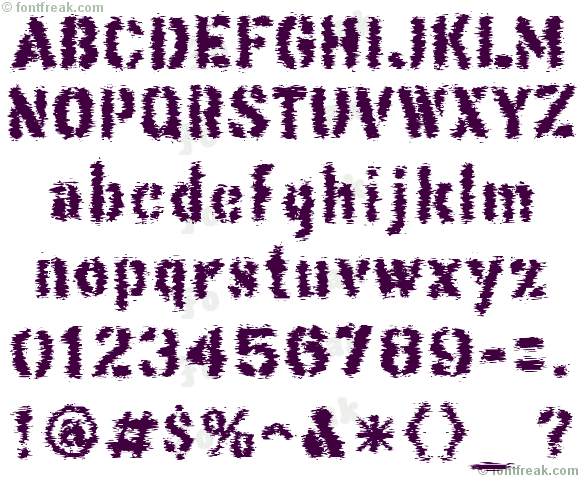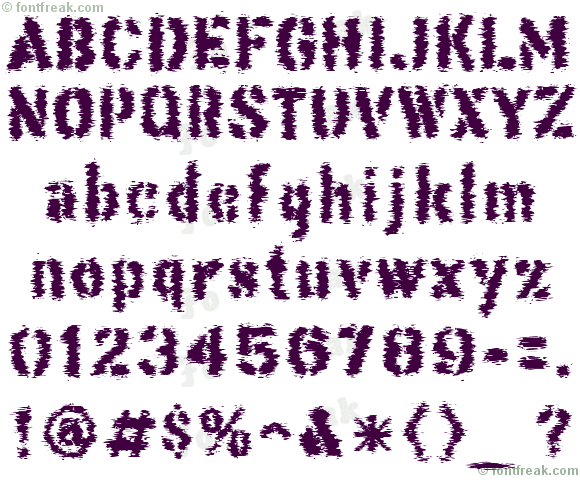
ThisCorrosion
This Corrosion
This Corrosion is a distinctive display font designed by Keith Bates, categorized as a decorative typeface. It exhibits a unique visual style characterized by its rough, textured strokes that evoke a sense of decay and imperfection. The font features a medium stroke weight with moderate contrast, contributing to an eye-catching and dynamic appearance. The irregularity in letterforms creates an organic feel, making it suitable for designs that aim to convey authenticity and a touch of ruggedness.
Ideal applications for This Corrosion include music album covers, urban-themed posters, and edgy branding for craft breweries. Its striking aesthetic can elevate the visual identity of restaurant menus seeking to attract a hip clientele or event flyers looking to draw in a crowd with a rebellious spirit. Additionally, content creators can use this font in social media graphics to convey a bold message, making it a versatile choice for various projects.
What truly sets This Corrosion apart is its ability to evoke emotion through its textured appearance, allowing it to communicate themes of nostalgia, rebellion, and creativity. Whether you're designing for a contemporary art event or crafting a vintage-inspired brand, This Corrosion font free download provides a distinctive edge that can make your work memorable. Its artistic flair and approachable nature ensure it will resonate with a variety of audiences, making it a must-have in any designer's toolkit.